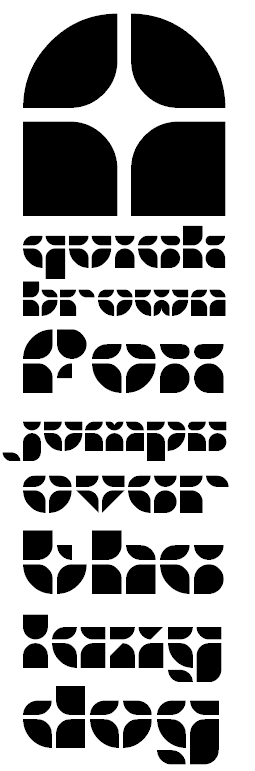
fs gridded lc
by ETHproductions
Cloned from fs gridded by ETHproductions.
Clone of fs gridded, with lowercase suggested by four.
UPDATES:
04/08/13 Figured I'd add some accents. :) V1.1.0
07/12/13 Added new double-story 'a', fixed ae accordingly, and added OE and oe. V1.1.1
08/02/13-08/03/13 Fixed up &, $ and numbers; added more punctuation. V1.1.2
10/18/13 Updated G, M, f, t, 2, 5, ?, @ and a few more. V 1.2.0
This is looking good ETH, nice sample too!
Very nice block seperation. 10/10.
Really nice effect, and fun retro style. I know you already know this, but e and c are fairly indistinguishable.
Oh... and can we have numbers?!!
@fugitiveglue: Numbers added. :) But I don't have any ideas for c and e. Anyone have suggestions?
Something like this? Capital C should be similar.
@four: Great suggestion. I'm going to use something similar and rounder:
Your solution is more elegant! How about some punctuation?
@four: Thank you for the compliment. Basic punctuation added!
Congratulations! FontStruct Staff have deemed your FontStruction worthy of special mention. “fs gridded lc” is now a Top Pick.
Well-done quartering.
Congratulations! and a 10/10 from me.